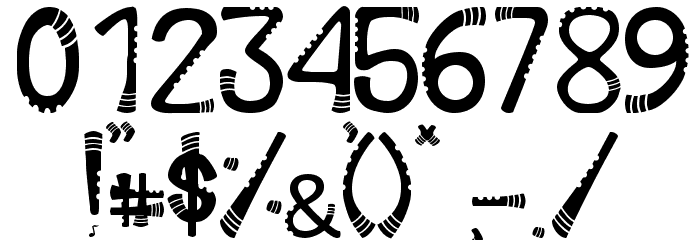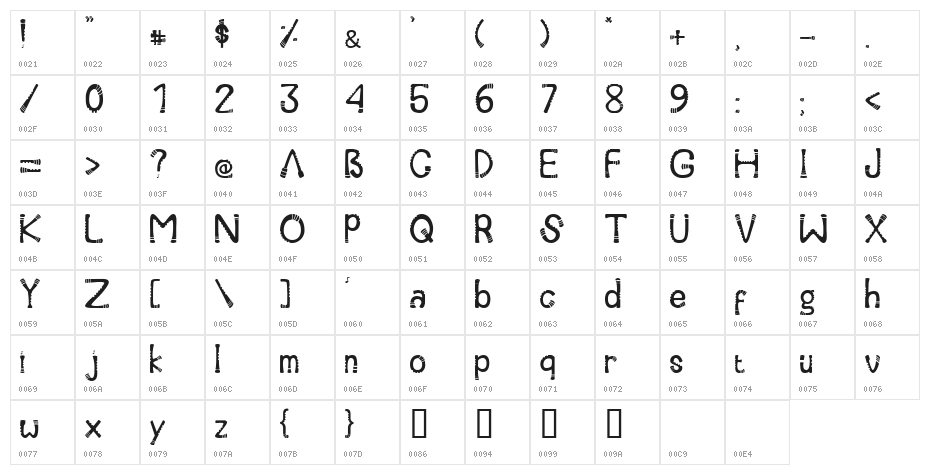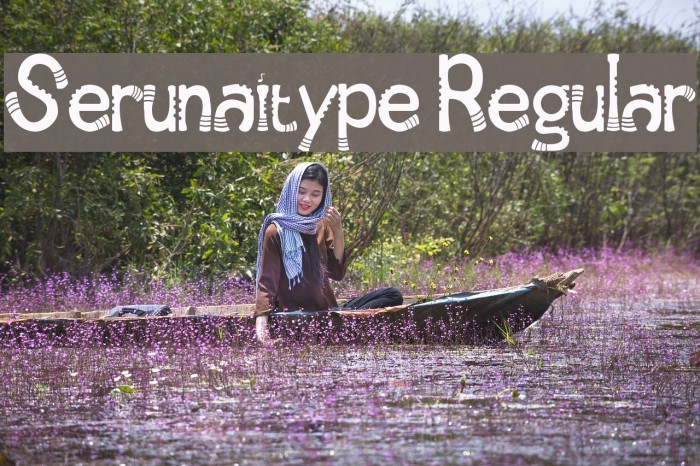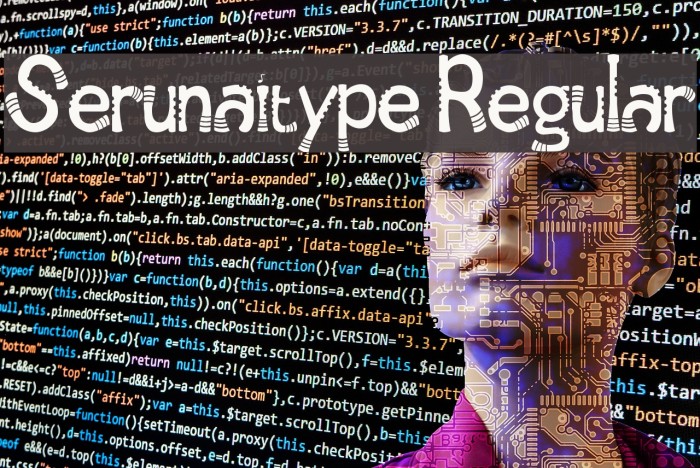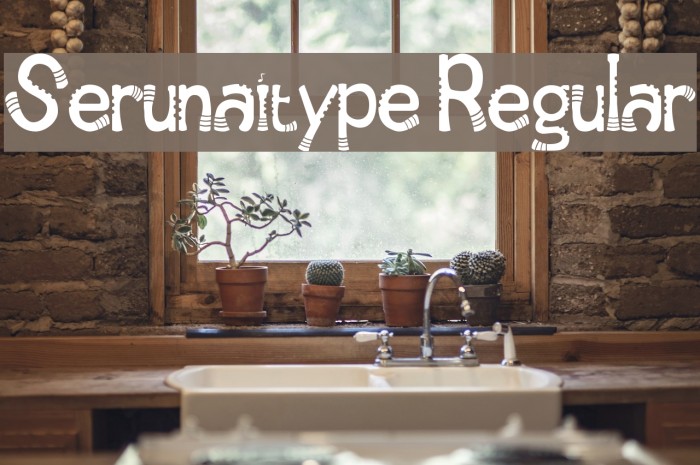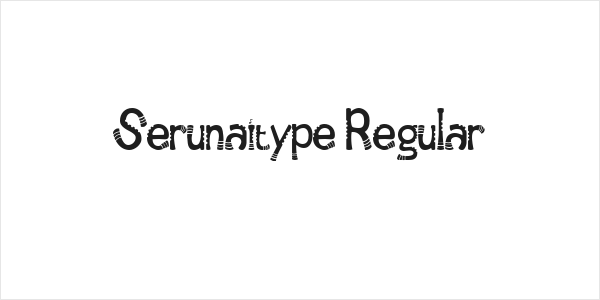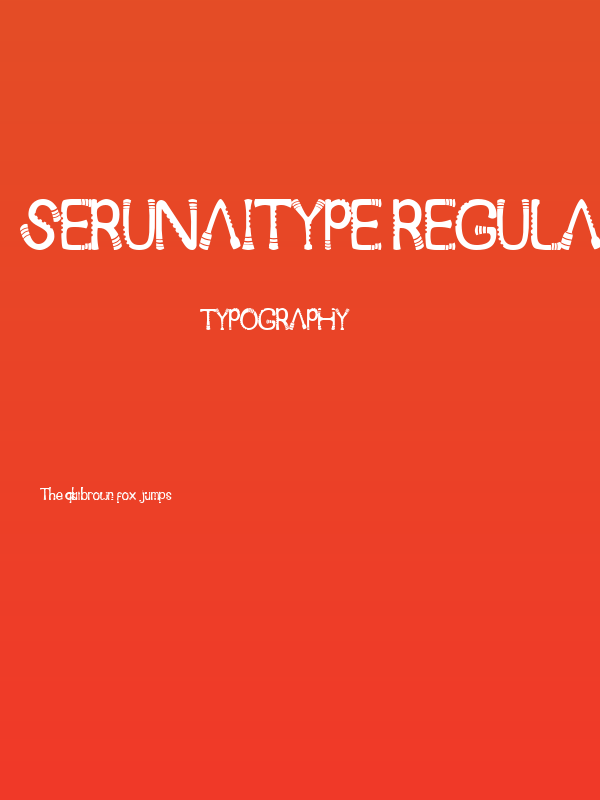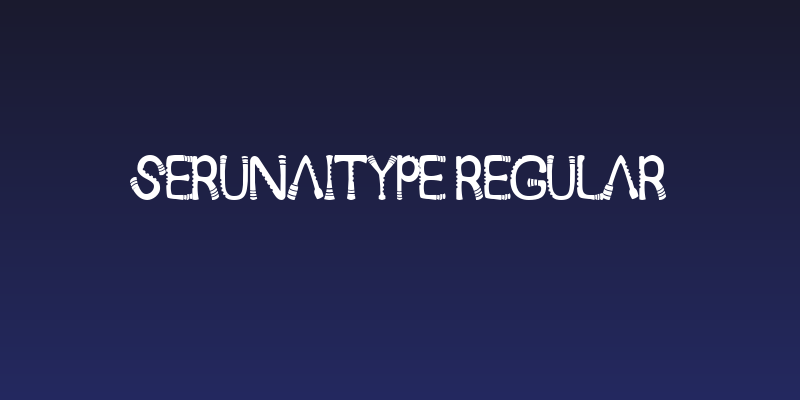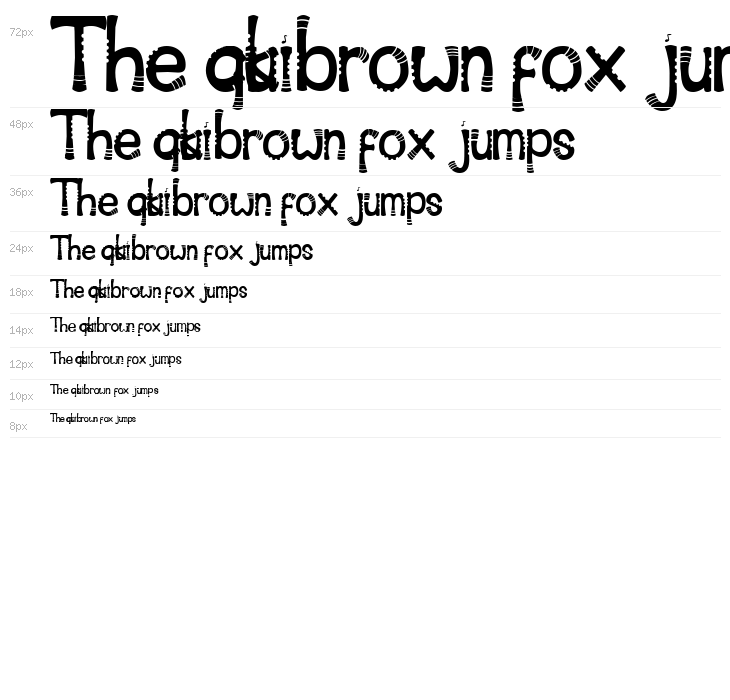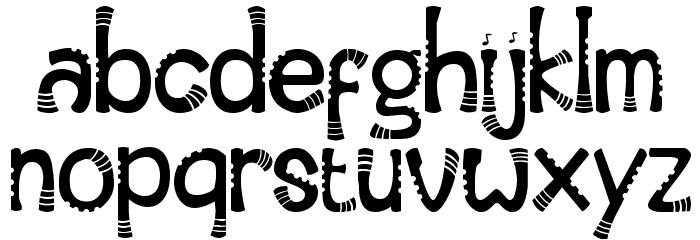
Serunaitype Regular Font
Serunaitype Regular Description
This font features a playful and whimsical design with a unique striped pattern running through each character. The letters are bold and rounded, giving them a friendly and approachable appearance. The alternating thick and thin strokes create a dynamic visual effect, making it stand out in any design. The font maintains a consistent style across uppercase, lowercase, numbers, and special characters, ensuring versatility in its application. Its distinct style is perfect for creative projects that require a touch of fun and personality.